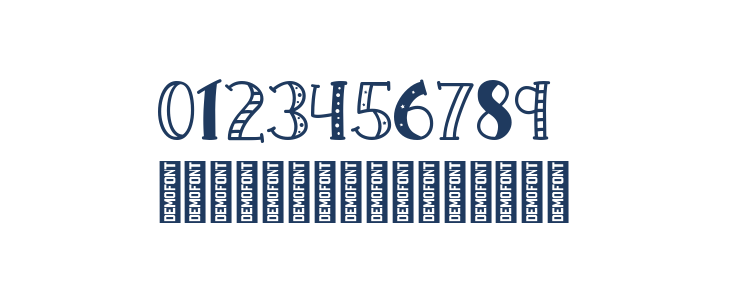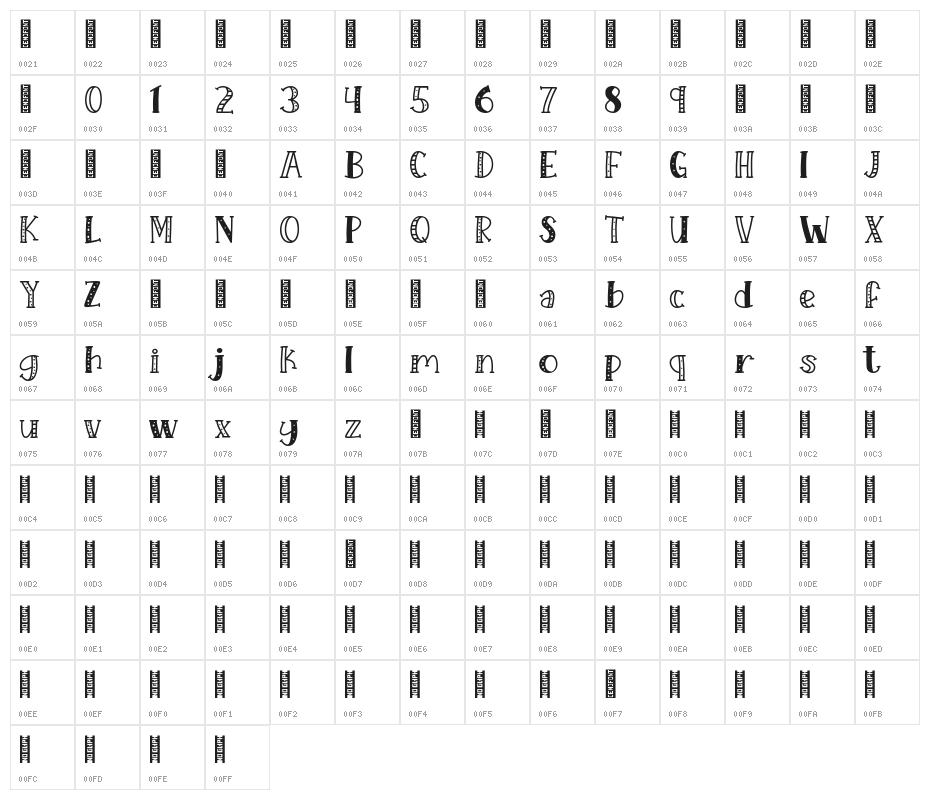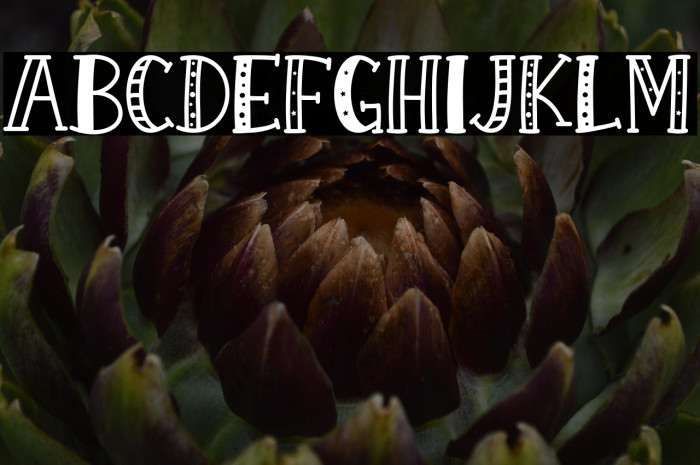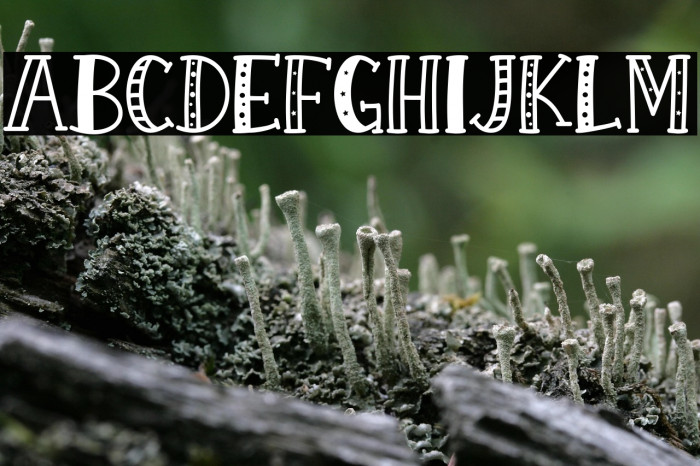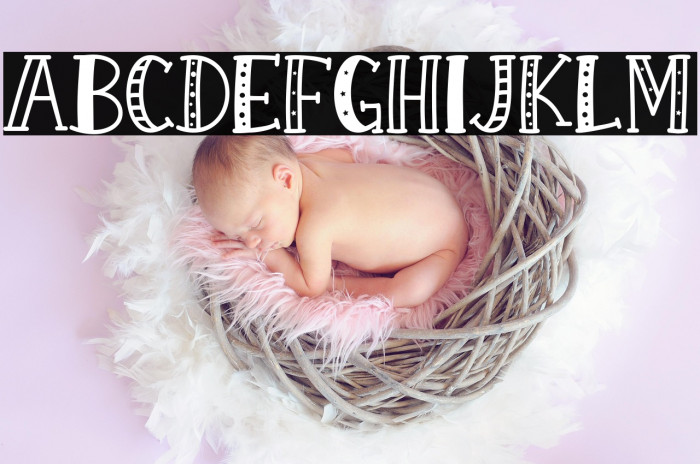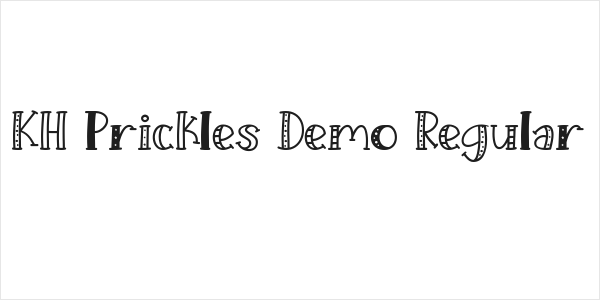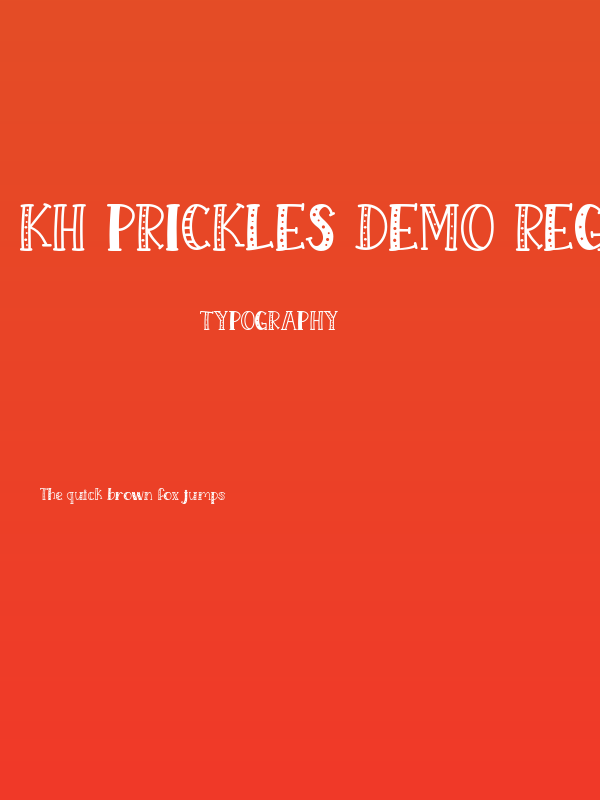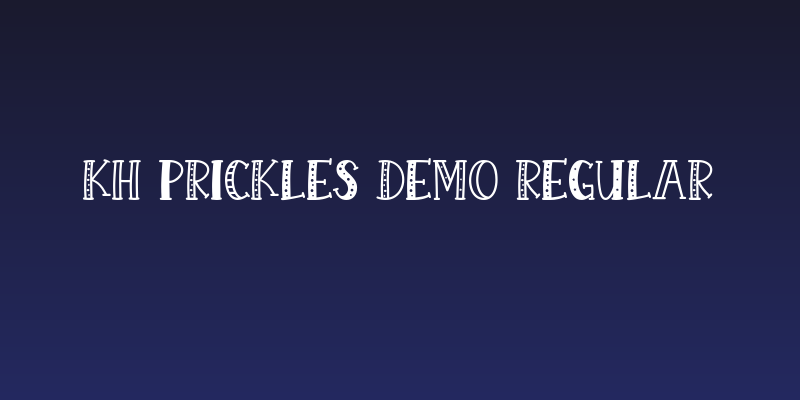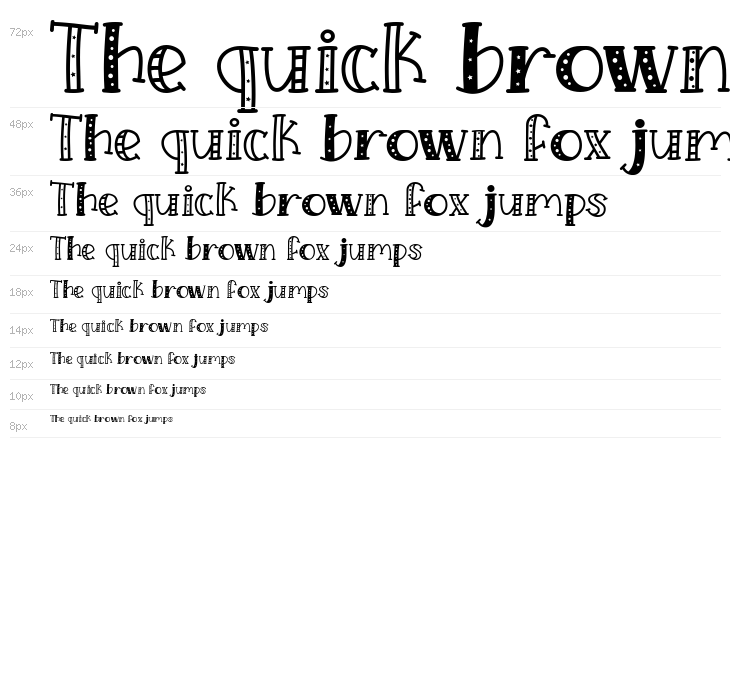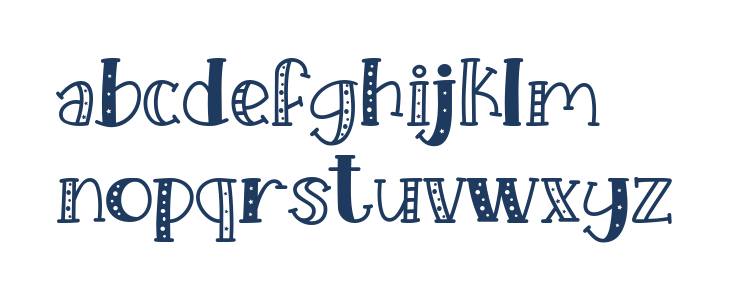
KH Prickles Demo Regular Font
KH Prickles Demo Regular Description
This playful and whimsical font features a decorative style with unique embellishments on each character. The uppercase letters are bold and eye-catching, with some incorporating dots and stars within their structure, adding a fun and quirky element. The lowercase letters maintain the same playful aesthetic, with varying stroke thicknesses and creative curves. The numbers follow suit, offering a consistent and engaging design. This font is ideal for projects that require a lively and imaginative touch, such as children's books, party invitations, or playful branding.
| Overall Style | Playful, Whimsical, Decorative |
| Proposed Projects | Children's books, party invitations, playful branding, greeting cards, and creative posters. |